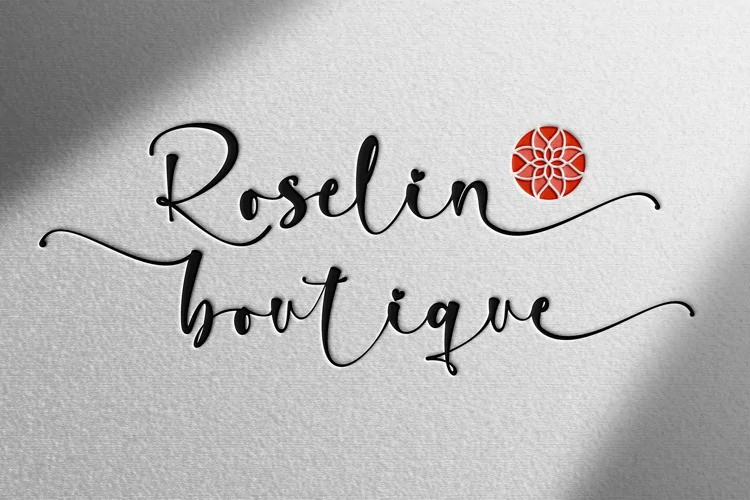
Rossellia Font
This font designed by Stefani Letter is a delicate and elegant handwritten typeface. This stunning script font is a stylish homage to modern calligraphy. Every letter has a unique and beautiful touch, which will make your design come alive! It features a varying baseline, smooth lines, gorgeous glyphs and stunning alternates.